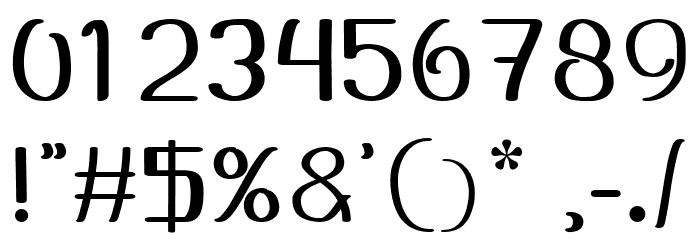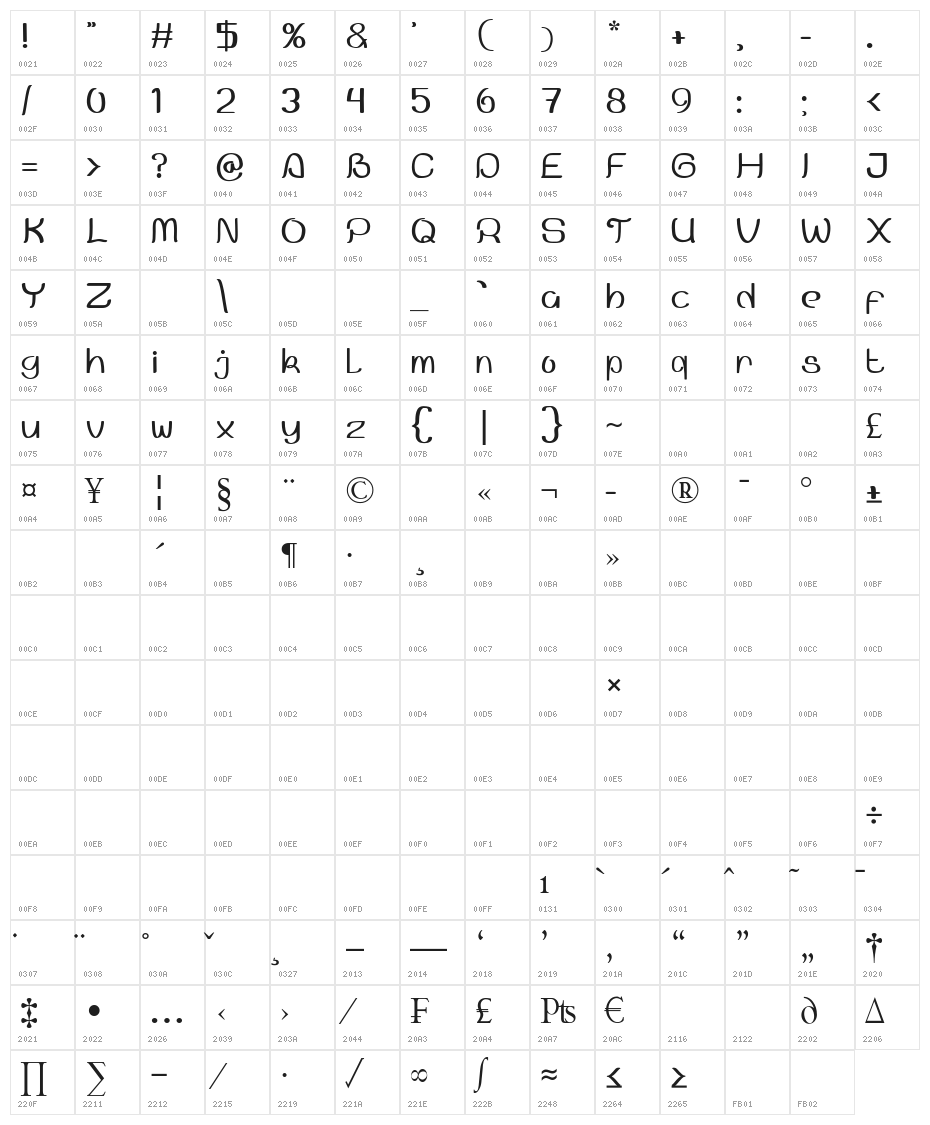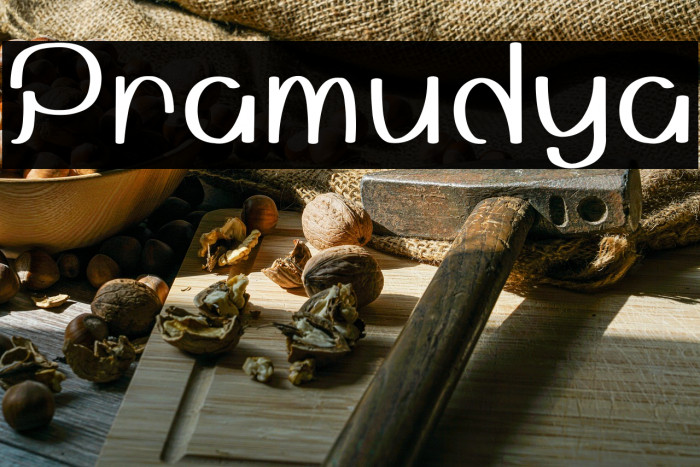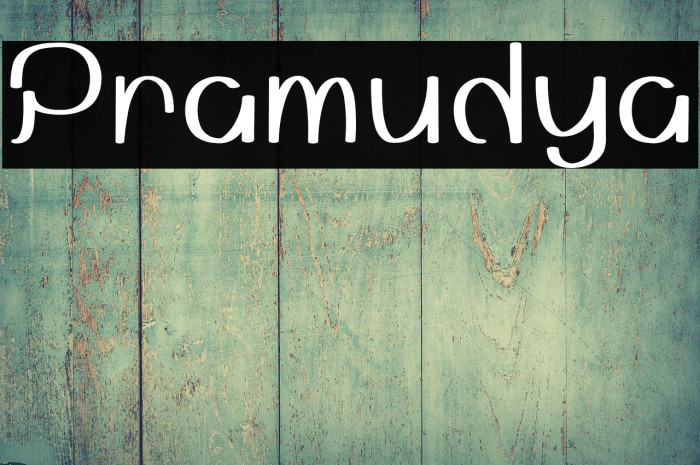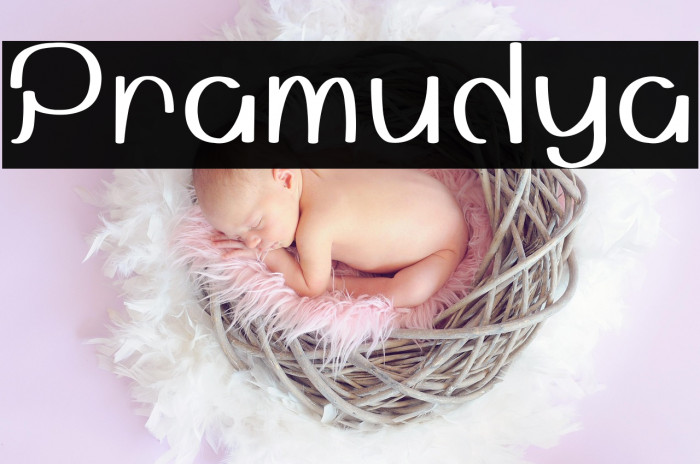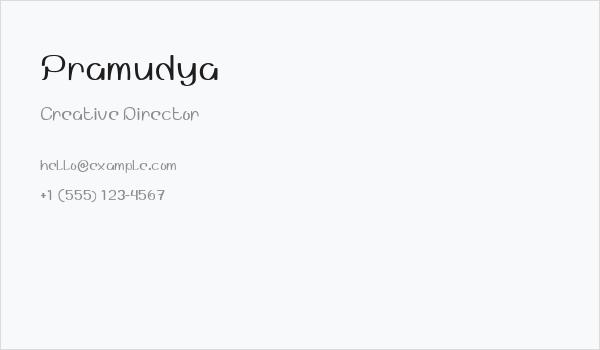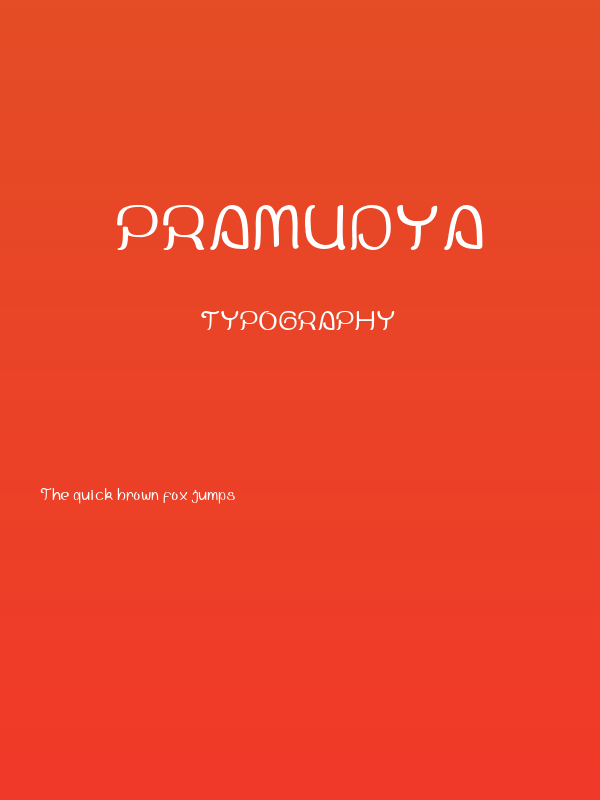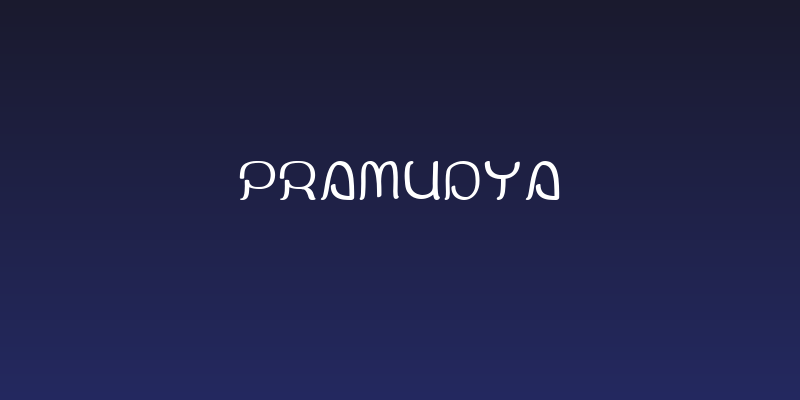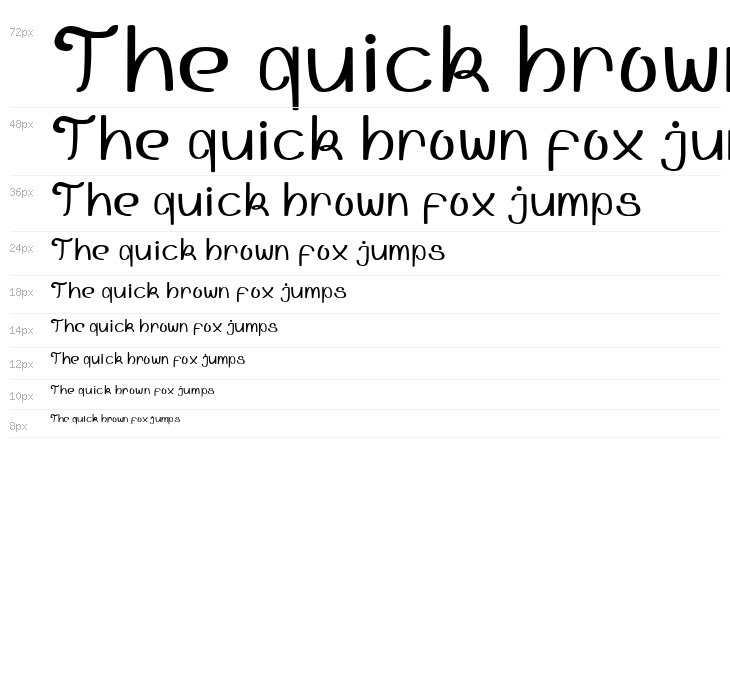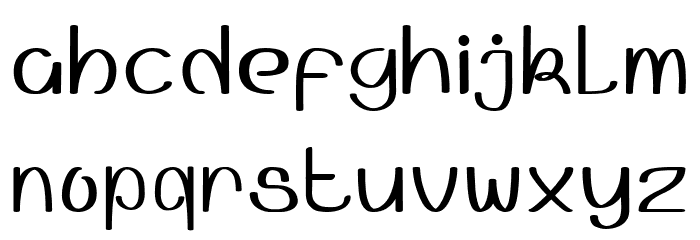
Pramudya Font
Pramudya Description
This font features a playful and rounded style with a handwritten feel. The characters are slightly elongated with smooth curves, giving it a friendly and approachable appearance. The uppercase letters maintain a consistent height, while the lowercase letters have a unique charm with some characters extending slightly above the x-height. The numerals are bold and clear, ensuring readability. Special characters are creatively designed, adding to the overall whimsical nature of the font. This font is ideal for projects that require a touch of personality and warmth.
| Use Case | Headlines, Logos, Casual Text |
| Proposed Projects | Ideal for children's books, playful branding, greeting cards, and casual invitations. |